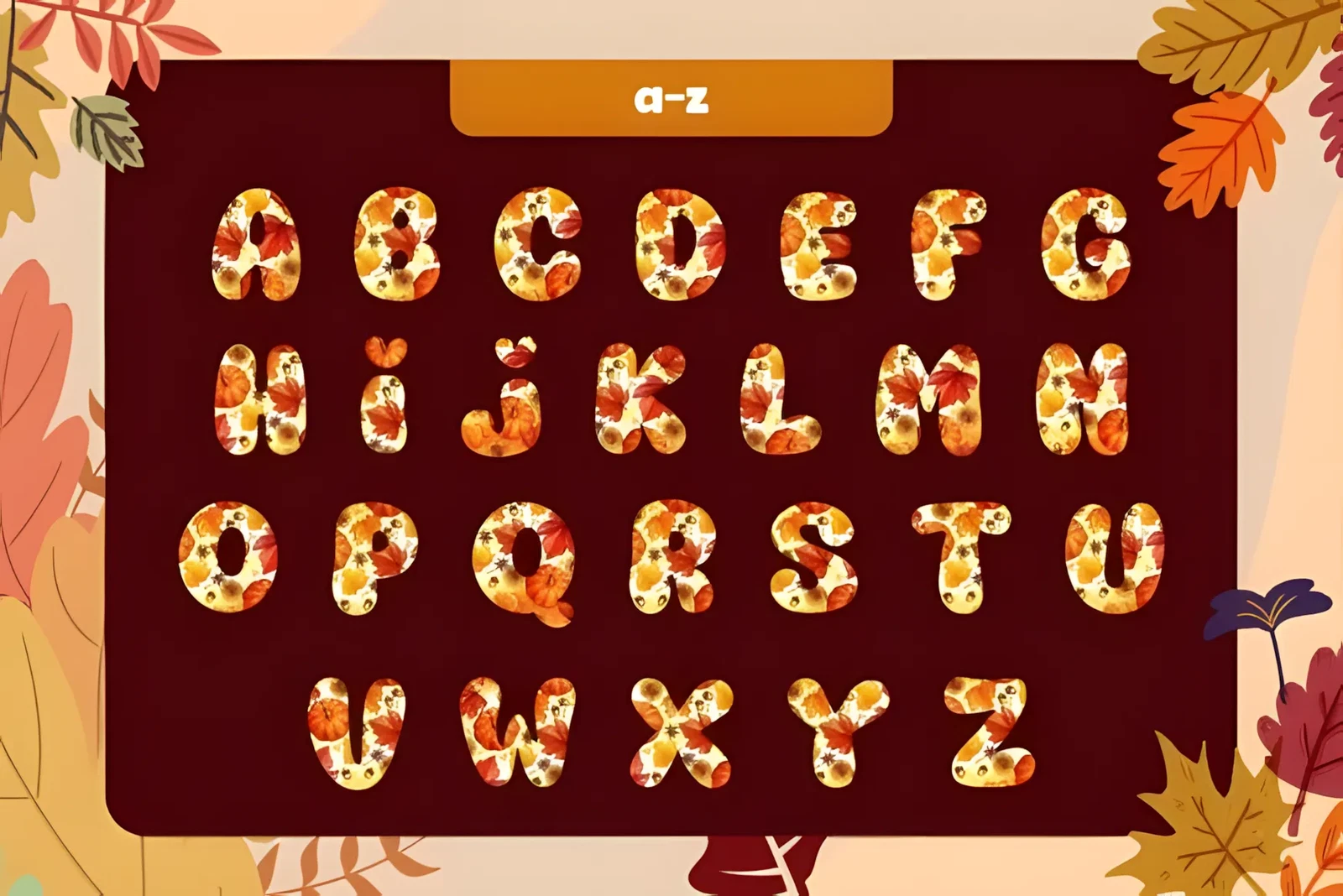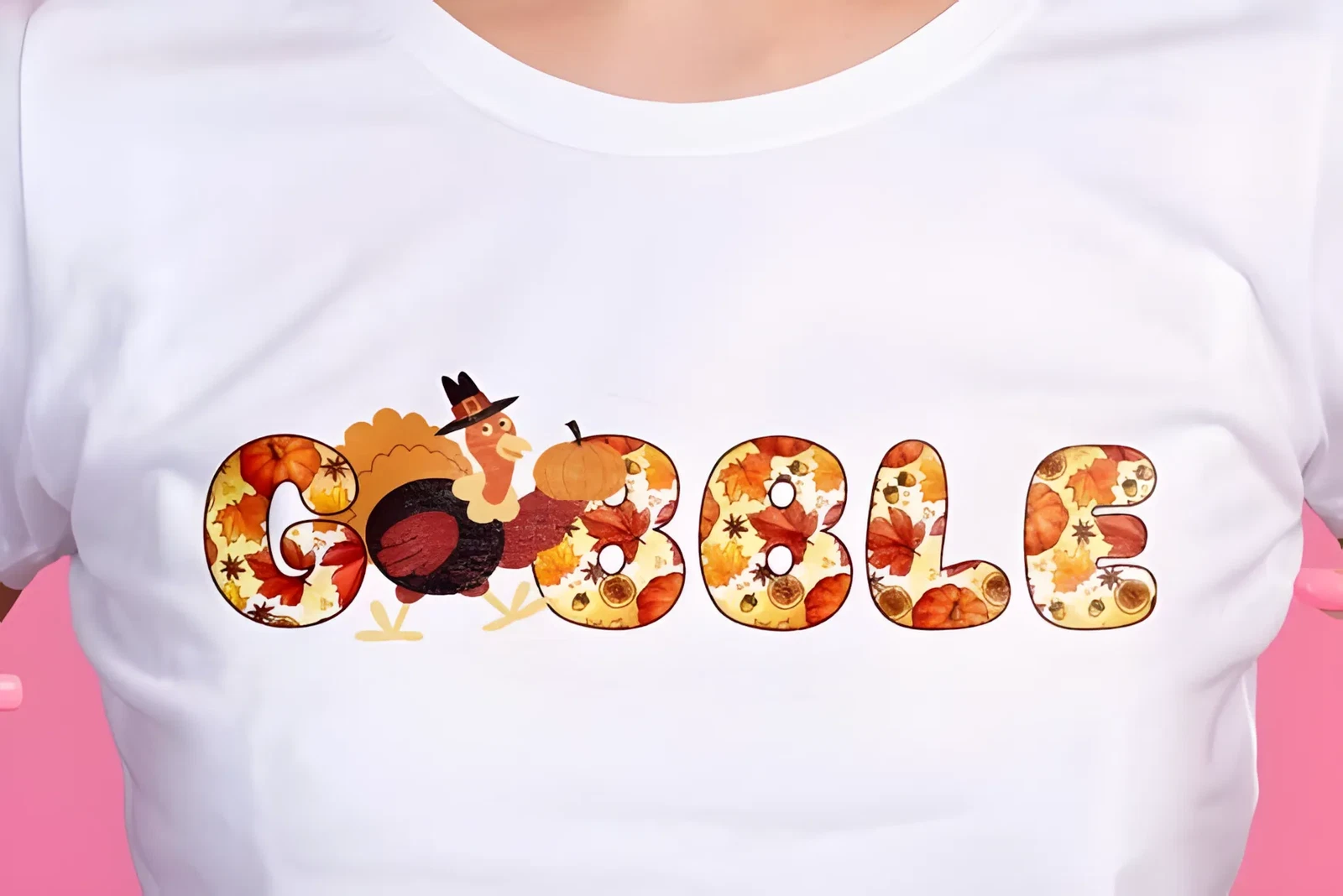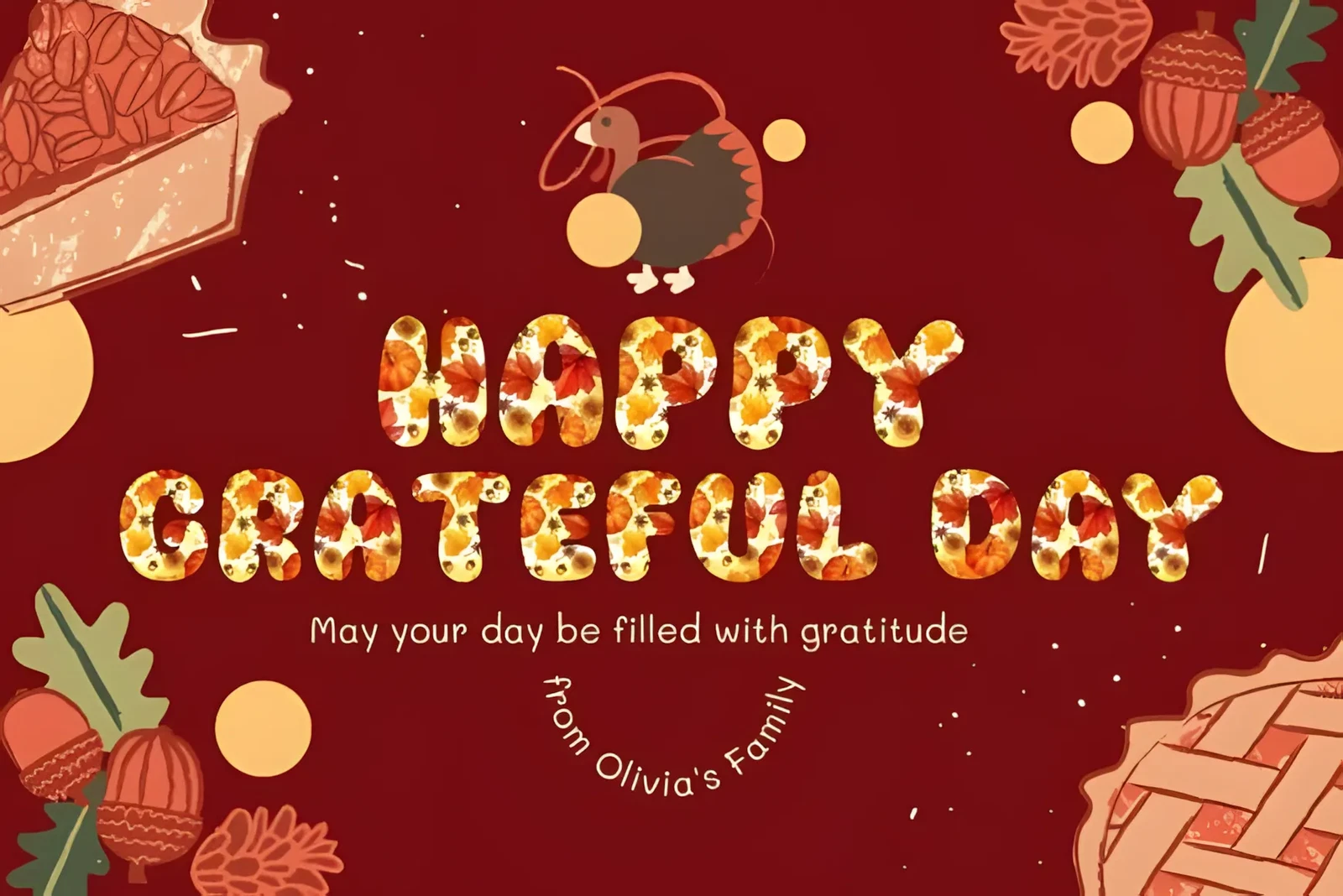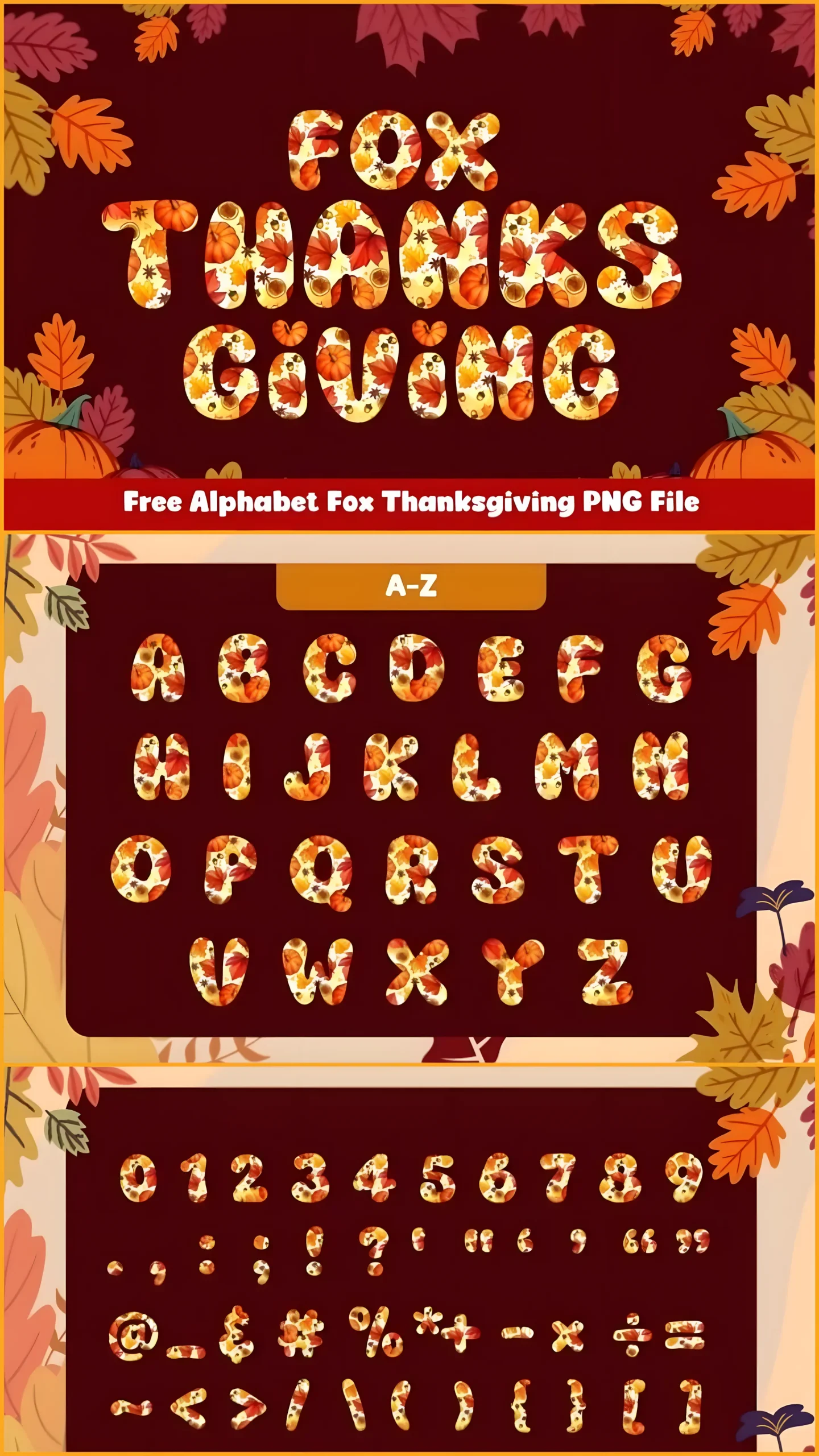
Some seasonal fonts rely only on color or decoration, but Fox Thanksgiving Font goes further by turning every letter into a full autumn illustration. This is a colorful display typeface designed to capture the warmth, gratitude, and cozy atmosphere associated with Thanksgiving and the fall season.
The font blends playful typography with detailed seasonal textures, making text feel decorative, festive, and instantly recognizable. It is designed for creatives who want their typography to become a visual centerpiece rather than just supporting text.
Visual Style and First Impression
Fox Thanksgiving Font immediately stands out as a color font filled with autumn imagery. Each letter is decorated with fall-inspired elements such as leaves, pumpkins, and warm seasonal patterns. The colors feel rich and inviting, reinforcing a sense of harvest, gratitude, and celebration.
Despite the detailed illustrations, the characters remain clearly shaped. The outlines are bold and readable, ensuring that words stay legible even with complex textures inside the letters. This balance between decoration and clarity makes the font practical, not just visually appealing.
The overall impression is festive, cozy, and cheerful.
A Color Typeface Built for Seasonal Storytelling
Fox Thanksgiving Font uses modern color font technology, allowing the decorative elements to appear automatically when typing. There is no need for additional graphics or manual coloring — the visual style is built directly into the font.
This makes it especially useful for projects where speed and visual impact matter. Even short phrases instantly communicate a Thanksgiving or fall theme, making the font highly effective for seasonal storytelling.
Designed for Thanksgiving and Fall Projects
Fox Thanksgiving Font feels purpose-built for autumn-related designs. It works especially well in projects related to:
- Thanksgiving celebrations
- fall festivals
- harvest themes
- gratitude and family gatherings
The font naturally sets a warm and welcoming tone, which makes it ideal for both personal and commercial seasonal projects.
Practical Design Applications
Invitations and Greeting Cards
One of the strongest uses for Fox Thanksgiving Font is holiday invitations and greeting cards. The illustrated letters make messages feel personal and festive without requiring extra artwork.
It fits perfectly for:
- Thanksgiving dinner invitations
- holiday greeting cards
- printable seasonal messages
The font itself becomes the decoration, keeping layouts simple and clean.
Posters and Seasonal Announcements
For posters and banners, Fox Thanksgiving Font delivers instant seasonal context. Headlines set in this font immediately communicate fall and celebration.
It works well for:
- Thanksgiving event posters
- fall festival announcements
- community or school events
- seasonal promotions
The bold shapes ensure visibility even from a distance.
Children’s and Educational Projects
The playful, illustrated style makes this font especially suitable for children-focused designs. It keeps attention while remaining friendly and approachable.
Common uses include:
- classroom decorations
- educational posters
- worksheets and covers
- school event materials
The font helps create an engaging and positive learning environment.
Digital and Social Media Content
On digital platforms, Fox Thanksgiving Font performs very well. The color details remain clear on screens, making it suitable for:
- social media posts
- story graphics
- digital banners
- seasonal campaigns
The cheerful style helps content stand out while maintaining a warm tone.
Readability and Usage Notes
Fox Thanksgiving Font is a display font, not intended for long text blocks. It works best in:
- titles
- short phrases
- highlighted words
Spacing is important. Allowing enough space between letters helps preserve the details and prevents designs from feeling crowded. Pairing it with a simple supporting font for body text keeps layouts balanced.
Emotional Tone and Design Feel
The emotional tone of Fox Thanksgiving Font is warm, joyful, and welcoming. It feels festive without being overwhelming and playful without becoming childish.
The font supports designs that aim to celebrate gratitude, togetherness, and seasonal comfort. It naturally creates a sense of coziness and positivity that aligns perfectly with Thanksgiving themes.
Fox Thanksgiving Font turns typography into seasonal artwork. By combining bold letterforms with detailed autumn illustrations, it creates text that feels festive, warm, and full of personality.
For designers and creators working on Thanksgiving or fall-themed projects, this font offers an easy way to add visual richness and emotional warmth without relying on additional graphics. Used thoughtfully, Fox Thanksgiving Font helps designs feel joyful, inviting, and unmistakably seasonal.